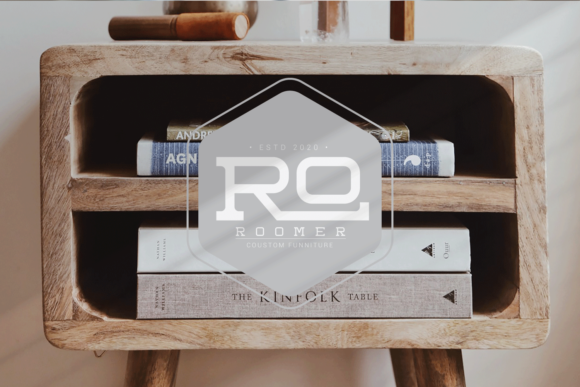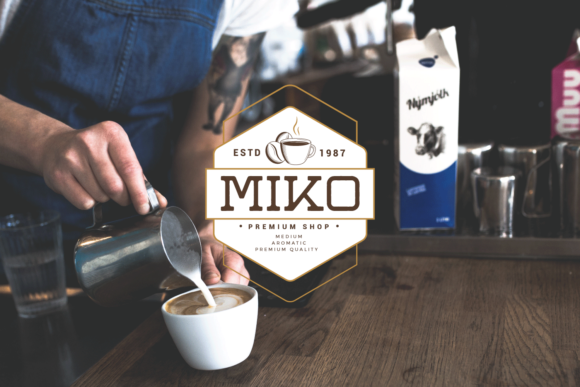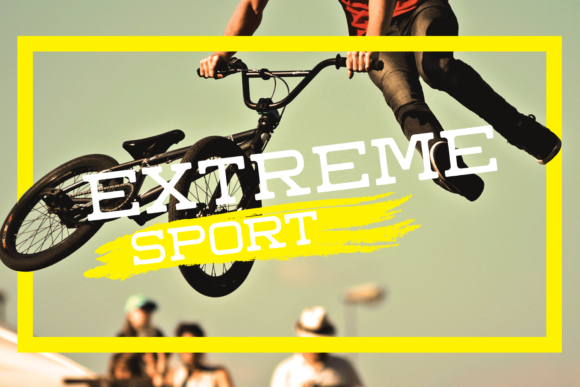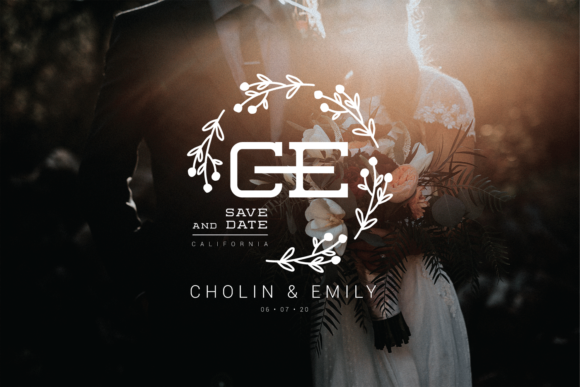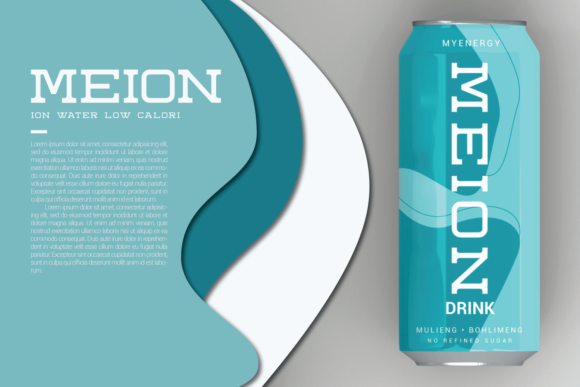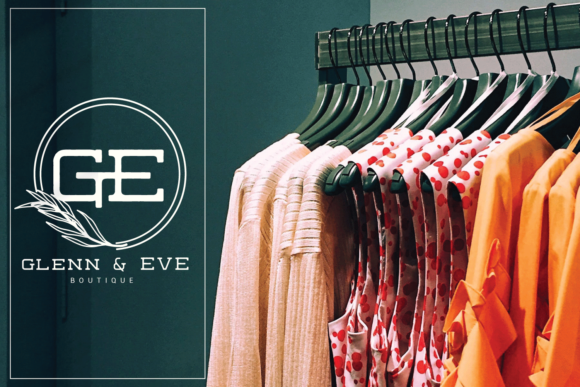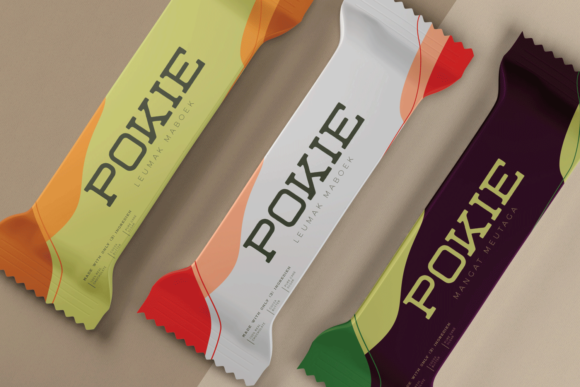
in Serif FontsHarjuna FontAbout Harjuna Font 100 Views View Gallery 9 images HARJUNA FONT SPECIMENHarjuna is an original and fun font. It has three variations, use it for any design project that requires a personalized appearance! Harjuna Written by canyonadmin Leave a Reply Cancel replyYour email address will not be published. Required fields are marked *Comment *Name * Email * Website Save my name, email, and website in this browser for the next time I comment.